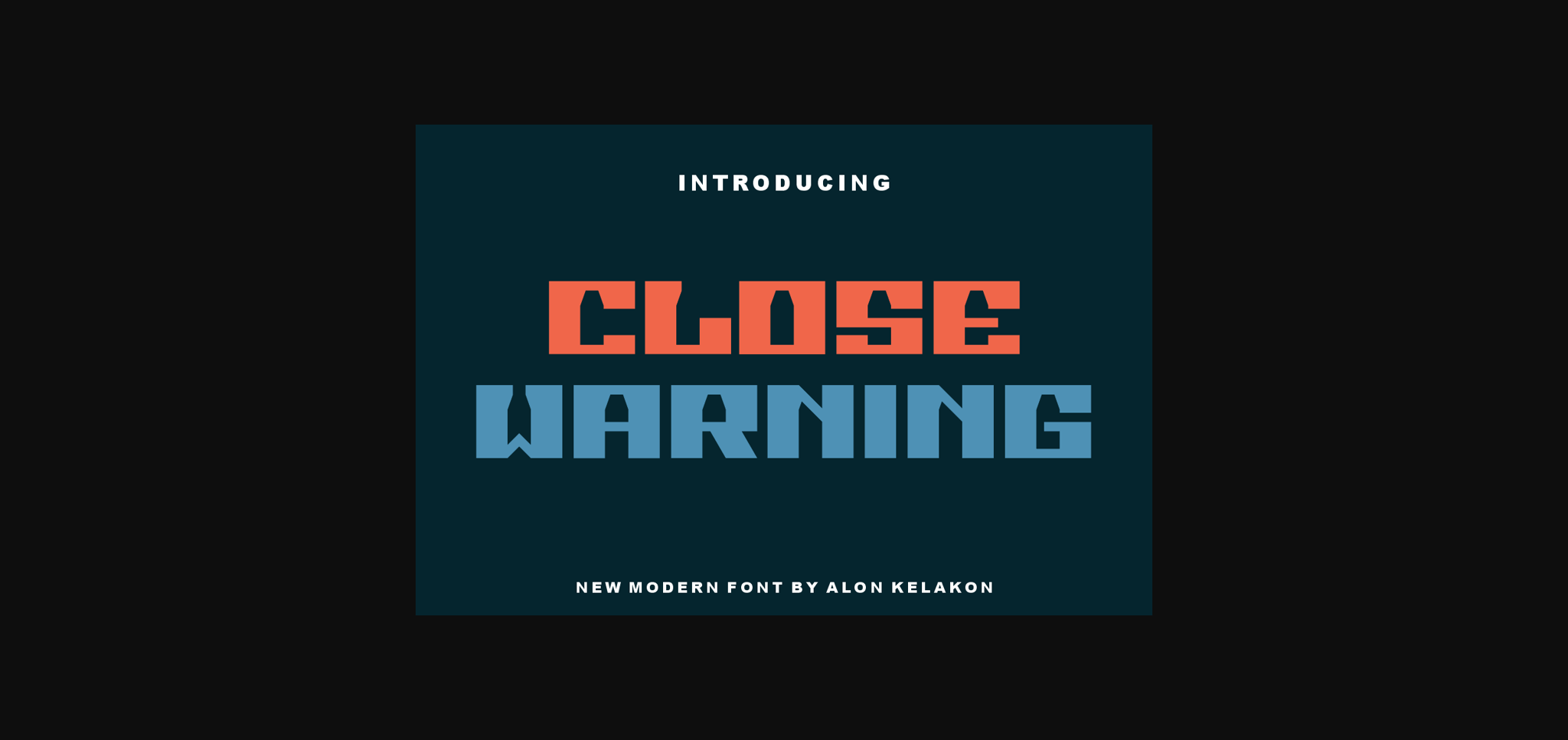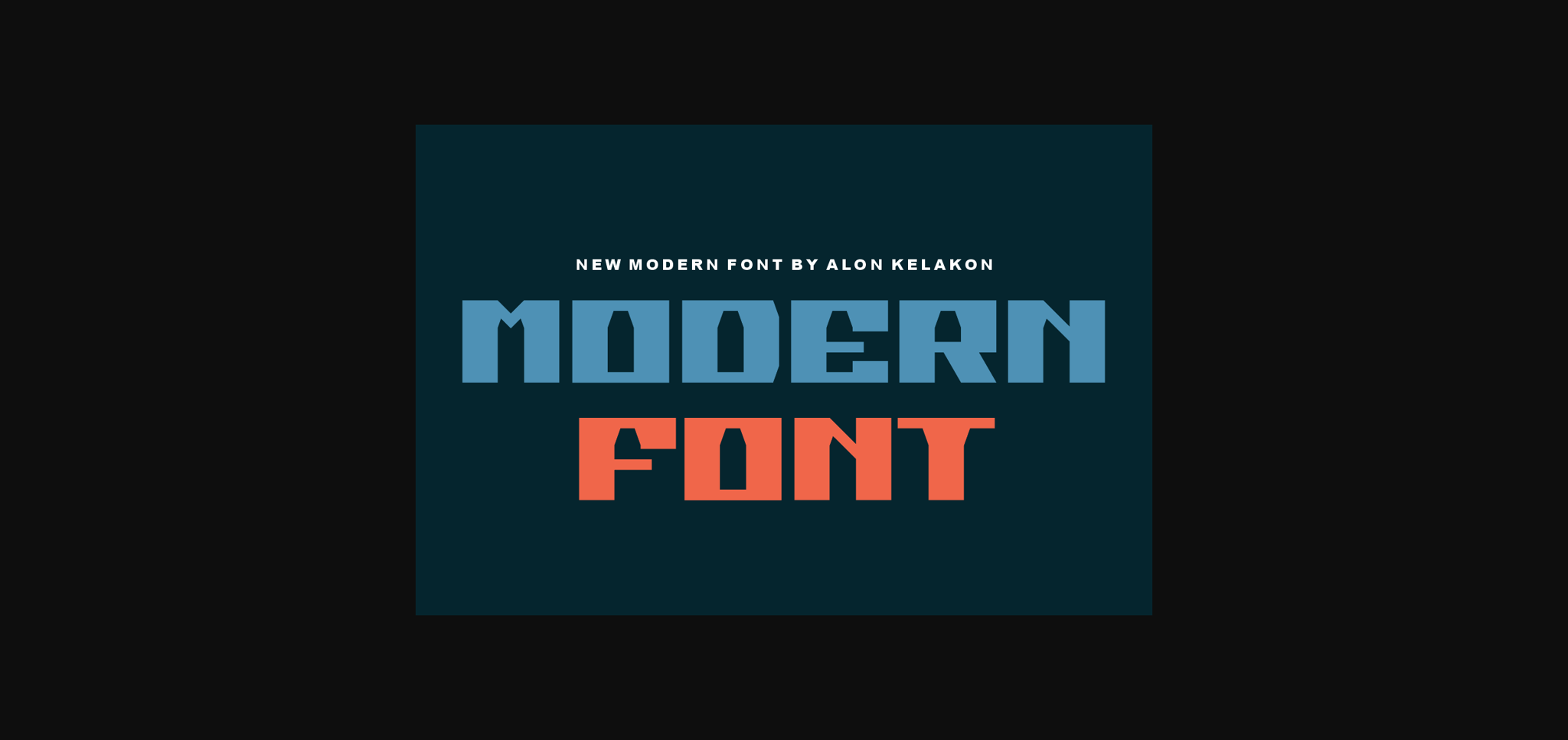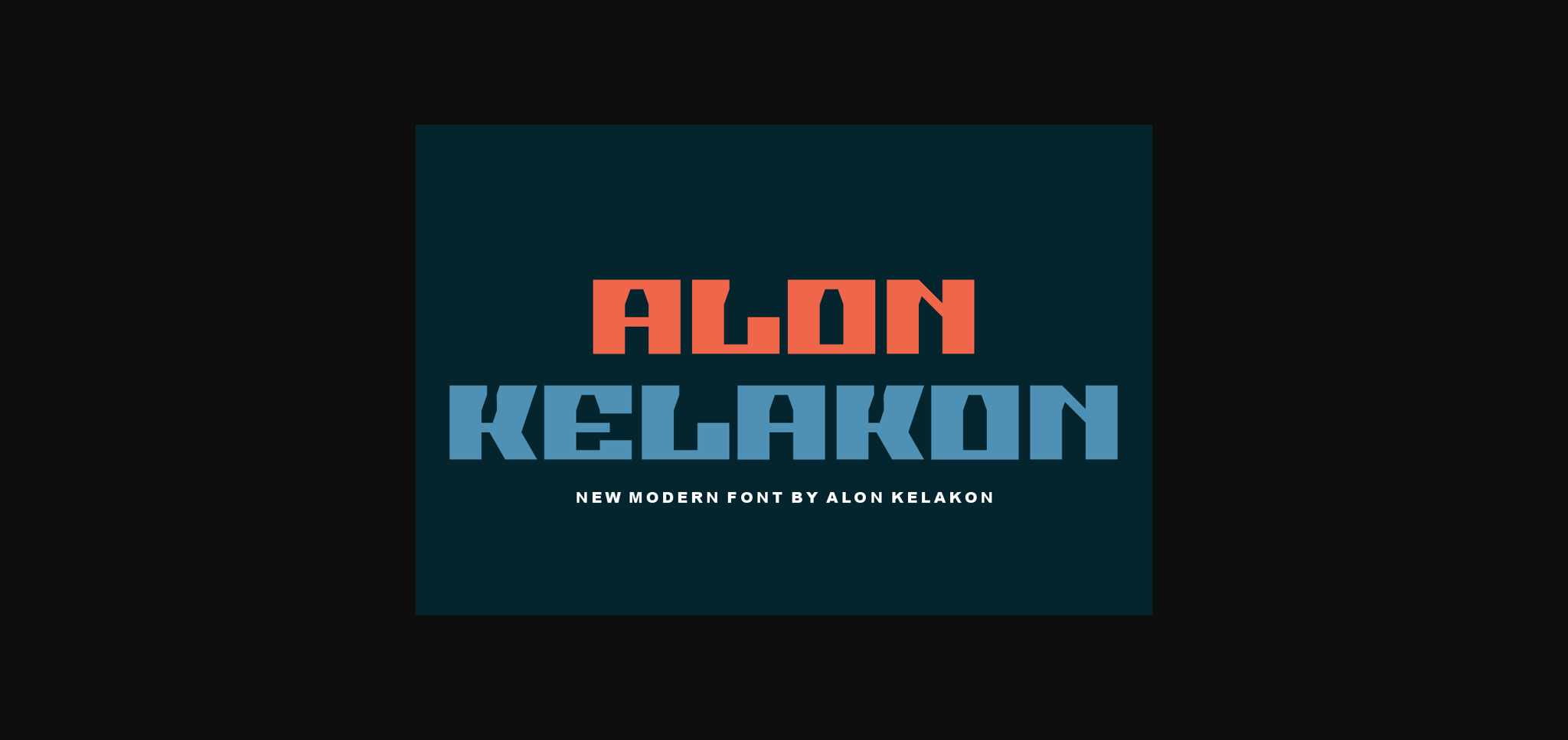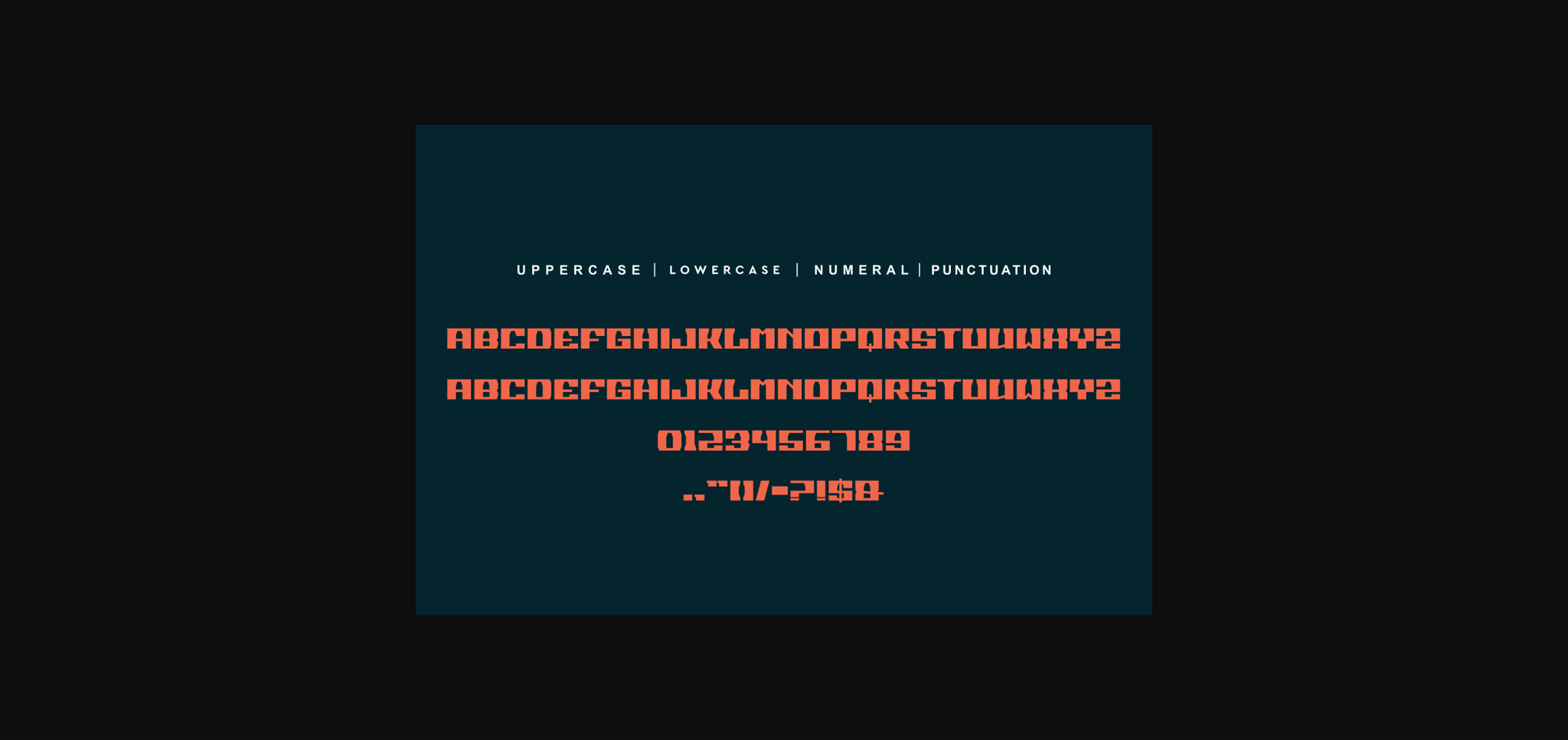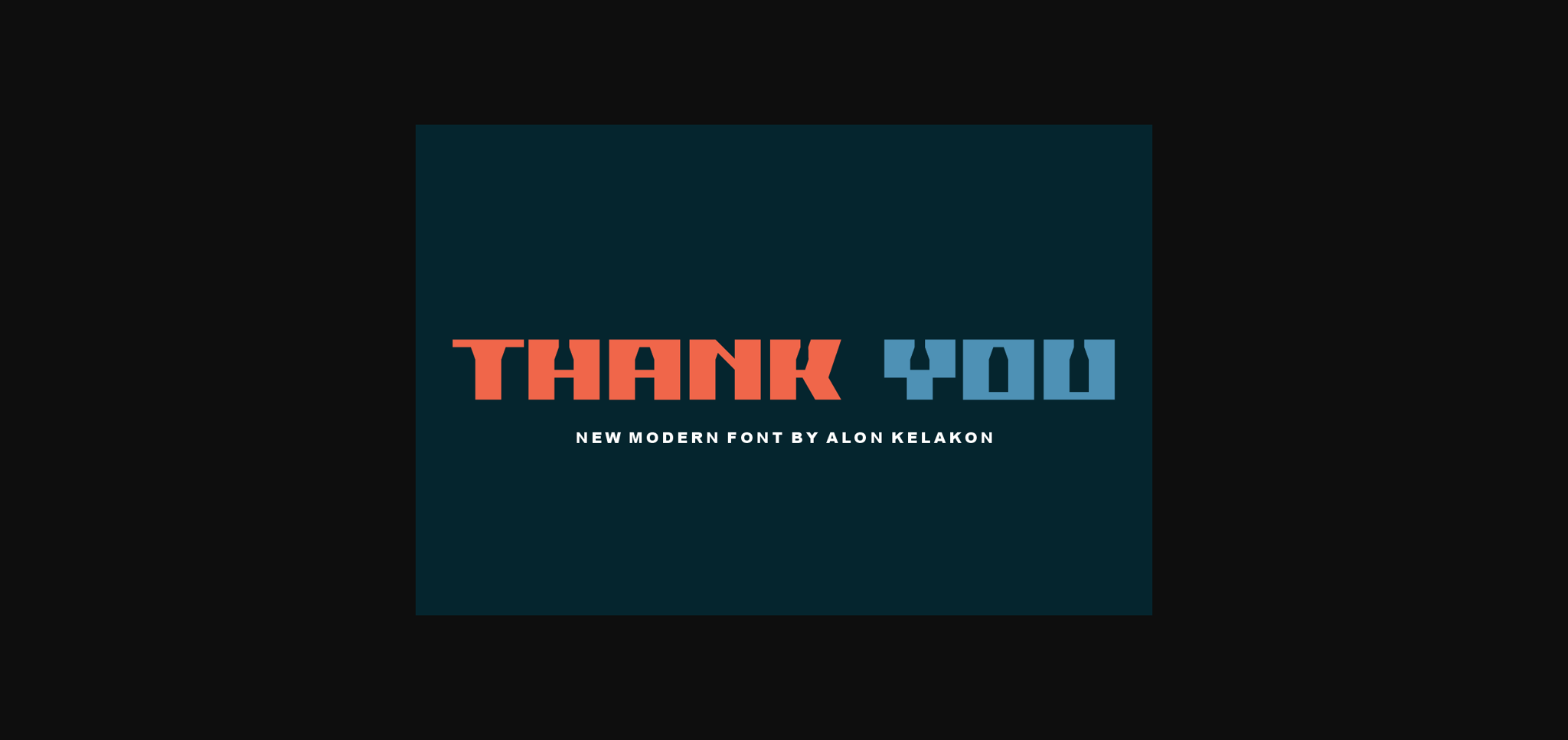
HomeSans Serif FontsClose Warning Font Sans Serif Fonts Close Warning Font FacebookXPinterestWhatsApp 1 of 7 ... Close Warning Font Poster 2... Close Warning Font Poster 3... Close Warning Font Poster 4... Close Warning Font Poster 5... Close Warning Font Poster 6... Close Warning Font Poster 7... About Close Warning Font Close Warning is a unique and bold sans serif ready to use for your design like labeling, clothing, movie scenes, poster, movie title, gigs, album covers, logos, and much more. DOWNLOAD NOW People also explored Marshmallow Font Kathopis Font Samantha Font Play Van Font Some Time Font Delegate Font Adellion Font Slowly Font Dustyland Script Font 420 0 TagsClose Warning Font Previous articleDragon Troopers FontNext articleTillie Font LEAVE A REPLY Cancel reply Comment: Please enter your comment! Name:* Please enter your name here Email:* You have entered an incorrect email address! Please enter your email address here Website: Save my name, email, and website in this browser for the next time I comment. Personal Use Free 5cent Free Graffiti Personal Use Free Read more about this font Loving Personal Use Free Read more about this font Historise Personal Use Free Read more about this font Just Love Personal Use Free Read more about this font BLOG Fonts That Capture the Spirit of New York City New York City is more than just a place—it’s an experience, a rhythm, a visual language... Free vs Paid Fonts: Why Investing in Premium Fonts Is Worth It Transform Your Website: Elevate Your Typography with 7 Best Web Font Generators Best Fonts for T-Shirt Design – Top 2025 Picks